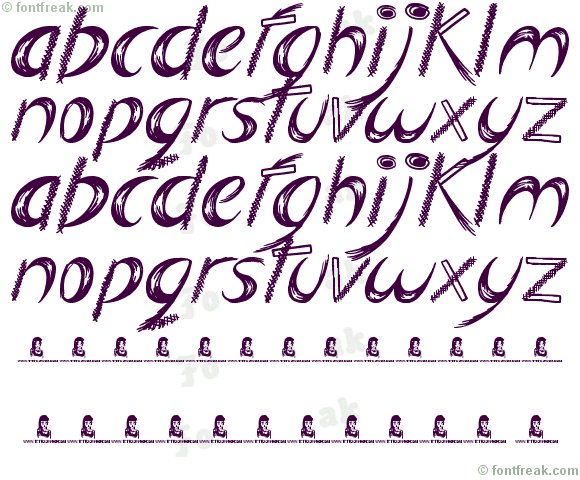
Big Easy
About Big Easy
The Big Easy font by Jonathan S. Harris is a unique display typeface that perfectly embodies a playful, casual aesthetic. With its handwritten style, this font features an organic flow that captures attention and adds a personal touch to any design project. The strokes exhibit a medium weight with varying contrast, giving the letters a lively, dynamic appearance. Each character is thoughtfully spaced, allowing for easy readability while maintaining a sense of artistic flair. Decorative elements, such as playful swirls and varied line thickness, enhance its charm, making it ideal for creative applications.
The Big Easy font is particularly well-suited for projects that require a touch of whimsy and informality. It can be effectively used in wedding invitations, where its friendly style conveys warmth and excitement. Movie posters can also benefit from its bold presence, drawing viewers in with a sense of fun and adventure. Additionally, restaurant menus featuring this font can create an inviting atmosphere, appealing to patrons looking for a relaxed dining experience. Content creators and social media influencers will find it ideal for captions and graphics that aim to resonate with audiences on a personal level.
What sets the Big Easy font apart is its ability to blend creativity and legibility, making it a valuable asset in any designer's repertoire. For anyone seeking to inject personality into their work, the Big Easy font free download is the perfect starting point.